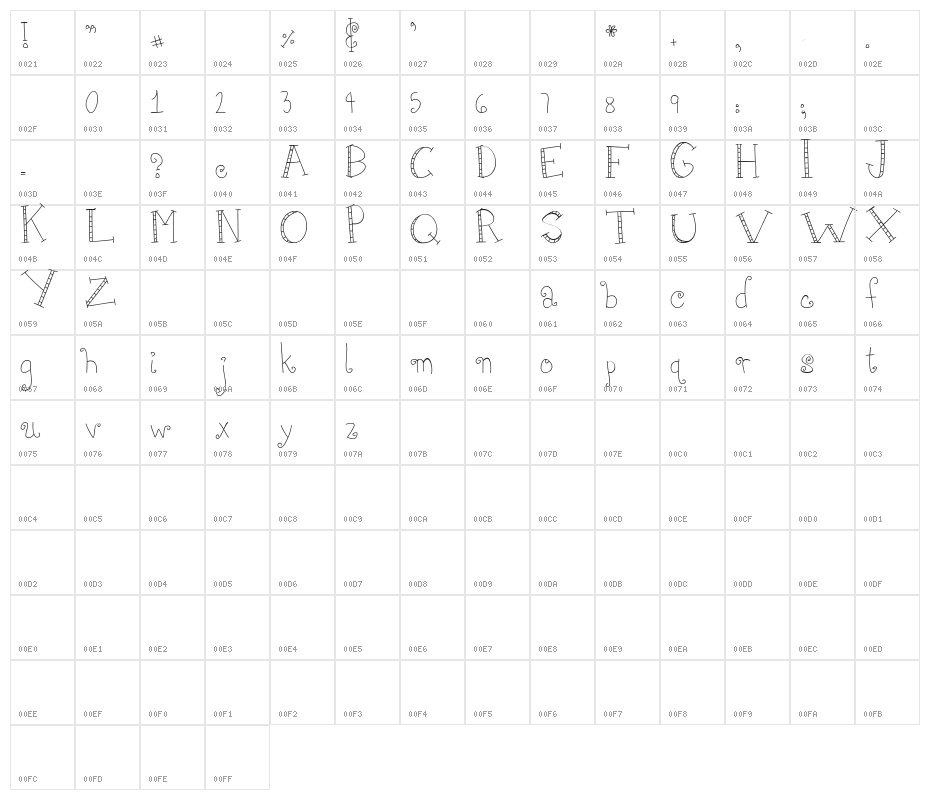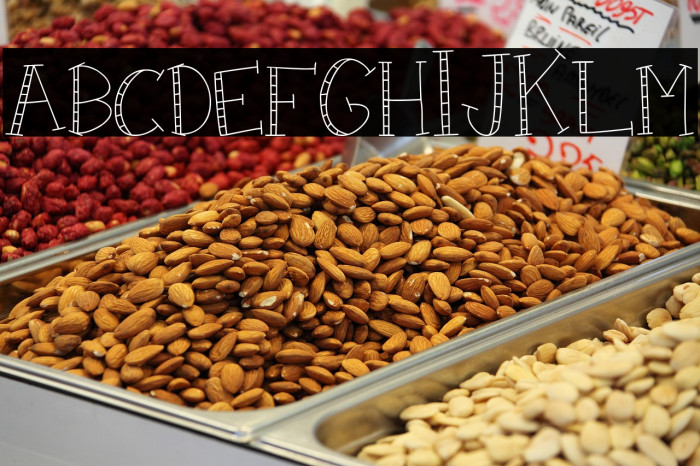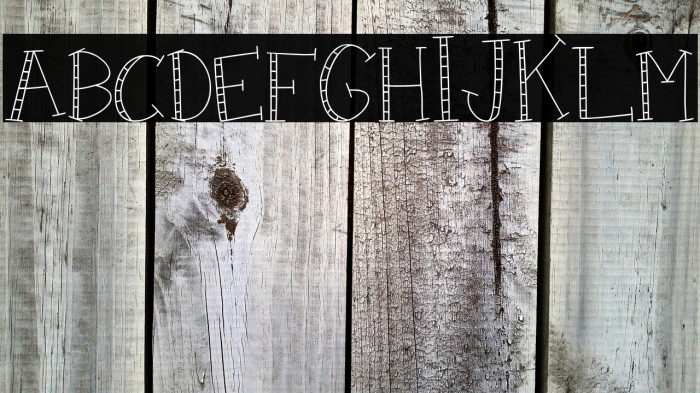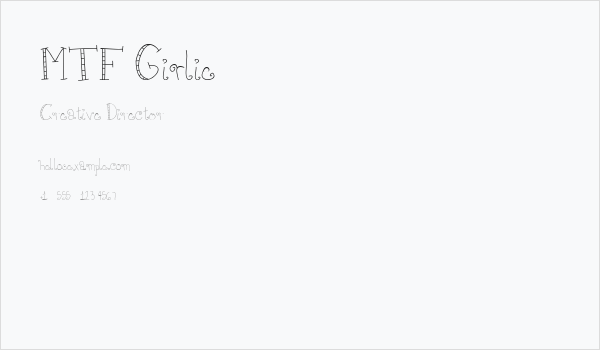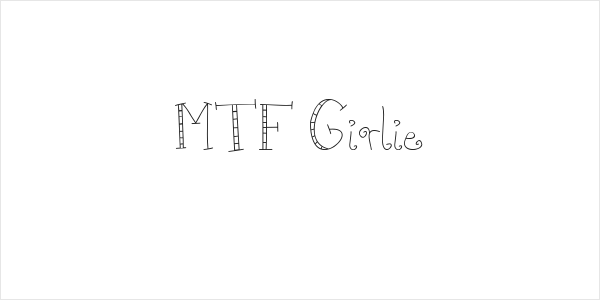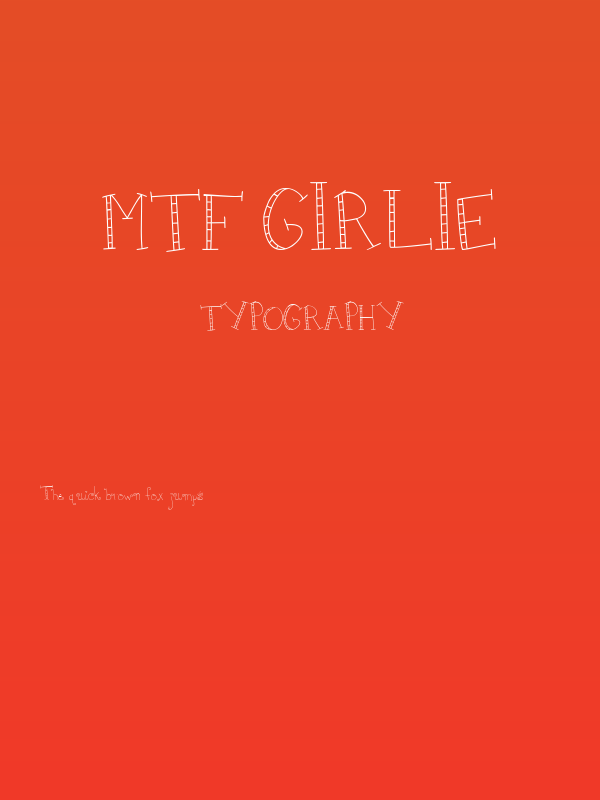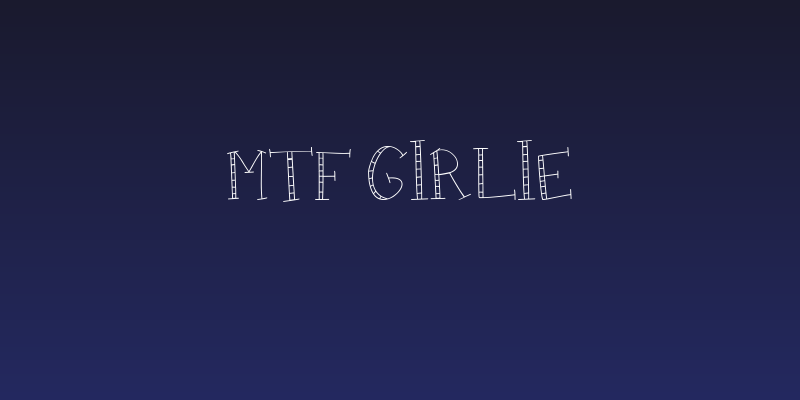
MTF Girlie Font
MTF Girlie Description
This whimsical and playful font features a unique combination of decorative elements and a hand-drawn style. The uppercase letters are characterized by a tall, narrow form with a striped pattern, adding a touch of fun and creativity. The lowercase letters exhibit a curly, swirly design that enhances the font's playful nature. Numbers and special characters maintain this quirky style, making the font ideal for projects that require a lighthearted and informal touch. The overall appearance is charming and imaginative, perfect for capturing attention in a variety of creative contexts.
| Use Case | Headlines, Logos, Creative Projects |
| Proposed Projects | Ideal for children's books, greeting cards, playful branding, and creative invitations. |